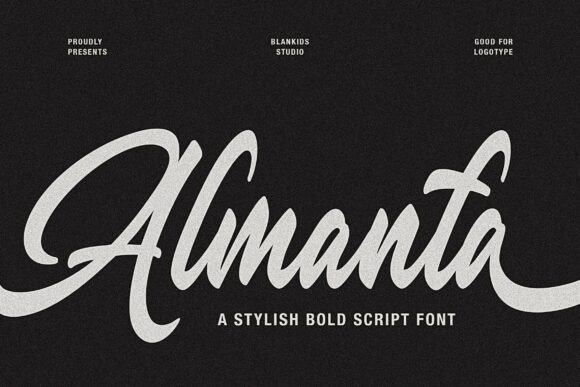
Discover the Power of Almanta: A Stylish Bold Script Font
I’ll never forget the design project that led me to Almanta. I was working on a branding campaign for a new coffee shop, and I needed a font that would convey warmth, energy, and a touch of sophistication. After hours of searching, I stumbled upon Almanta, and it was love at first sight. The smooth curves, confident strokes, and timeless handcrafted feel instantly won me over. In this article, I’ll share my experience with Almanta, its features, and how to make the most of this stunning font.
A Personal Review of Almanta
- ✨ Smooth curves and confident strokes: Almanta’s bold weight and flowing letterforms make it perfect for designs that need a strong visual impact.
- ✅ Elegant and timeless feel: This font combines modern script characteristics with a classic vintage touch, making it suitable for a wide range of design projects.
- 💡 Excellent readability and personality: Almanta’s carefully crafted characters create a natural handwritten rhythm, adding warmth and authenticity to any design.
While Almanta is an exceptional font, there are a few things to keep in mind:
- ⚠️ Limited use in body text: Due to its bold weight, Almanta is best suited for headlines, titles, and short paragraphs. For longer texts, consider pairing it with a complementary font.
- 🤔 Some characters may require manual kerning: As with any script font, some characters may need manual kerning to achieve optimal spacing and readability.
The Story Behind Almanta
Almanta was designed by a team of typographers who aimed to create a font that would blend modernity with classic elegance. Inspired by traditional calligraphy and hand-lettering, Almanta’s creators sought to craft a font that would be both bold and refined. The result is a font that exudes confidence, sophistication, and a touch of vintage charm.
Q: What is Almanta’s primary use?
A: Almanta is designed for use in headlines, titles, logos, and short paragraphs. Its bold weight and elegant feel make it perfect for designs that require a strong visual impact.
Q: Does Almanta support OpenType features?
A: Yes, Almanta supports OpenType features like stylistic alternates, glyphs, and ligatures. These features can be accessed through compatible design software like Adobe Photoshop and Illustrator.
Q: Can I use Almanta in digital and print designs?
A: Absolutely! Almanta is versatile and can be used in both digital and print designs, including logos, branding, apparel, packaging, posters, and more.